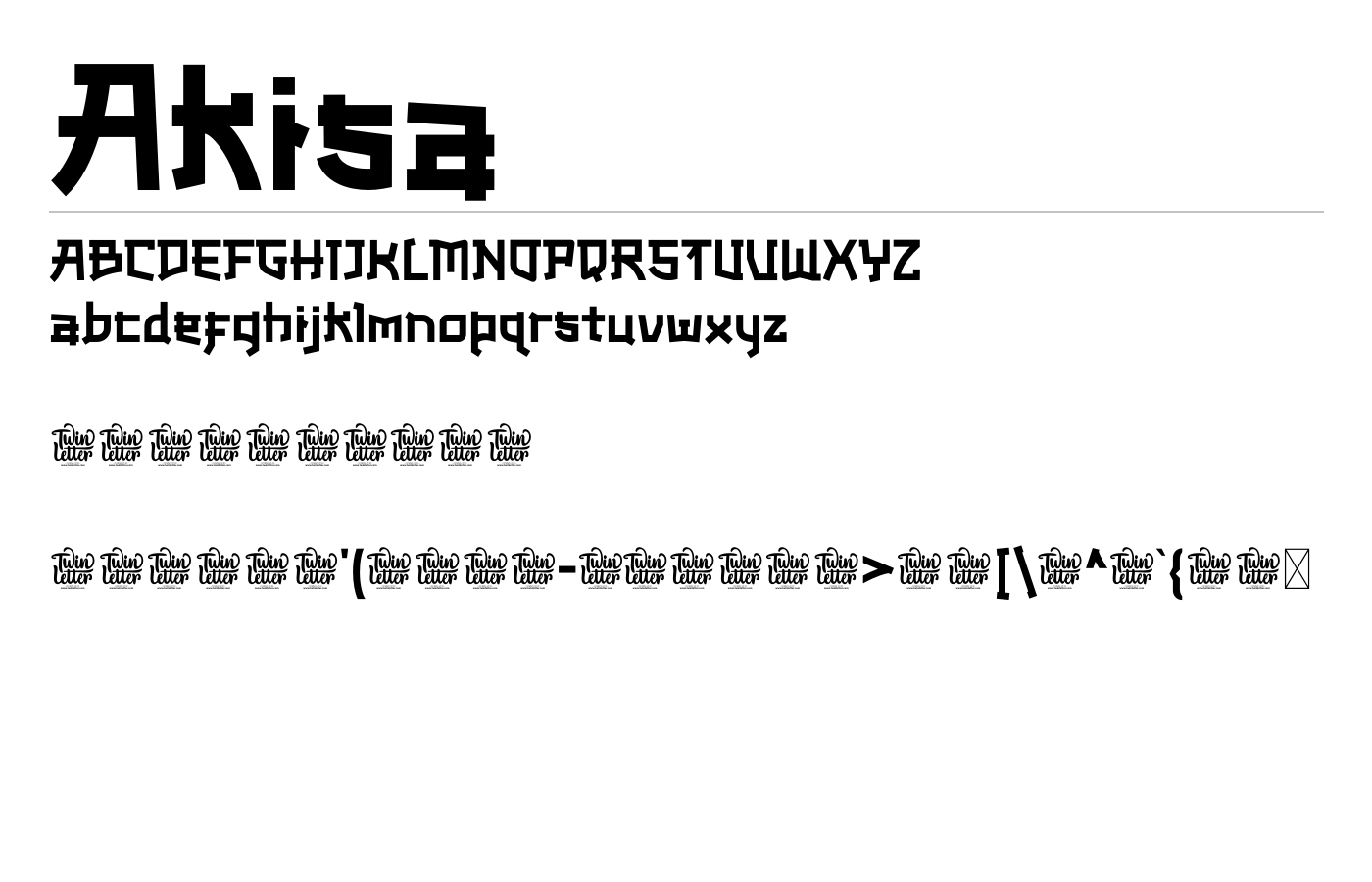
Akisa is a bold, condensed sans serif font with a striking, geometric feel and a touch of playfulness. Its sharp angles and unique letterforms give it a modern yet slightly edgy personality, making it ideal for eye-catching headlines, logos, and branding that seek to stand out with a strong, unconventional style. This font works best in creative, contemporary projects where a distinctive and impactful look is desired.
Akisa Font
About Akisa Font